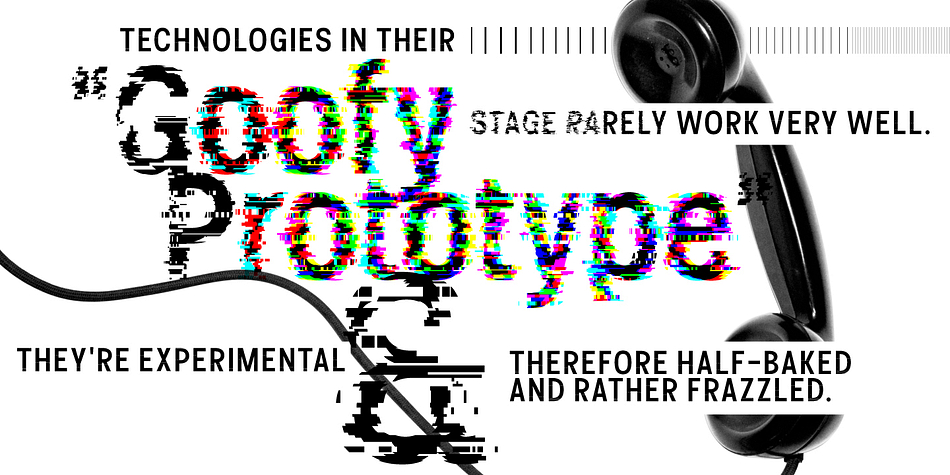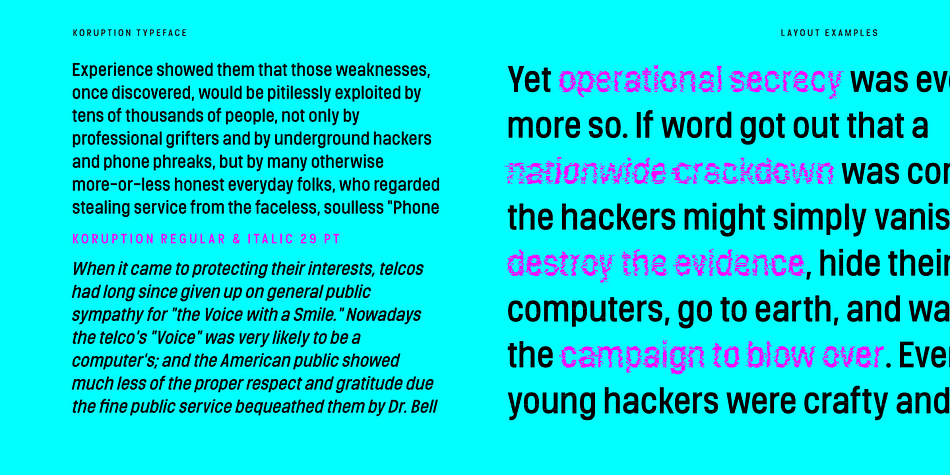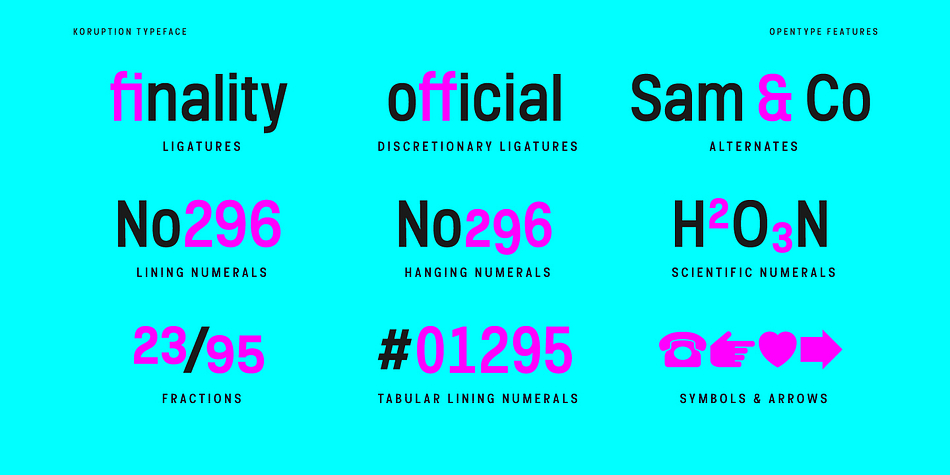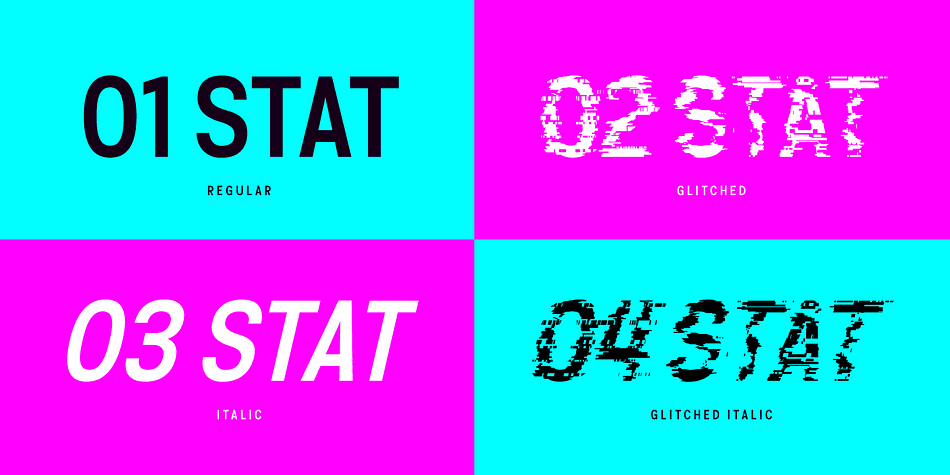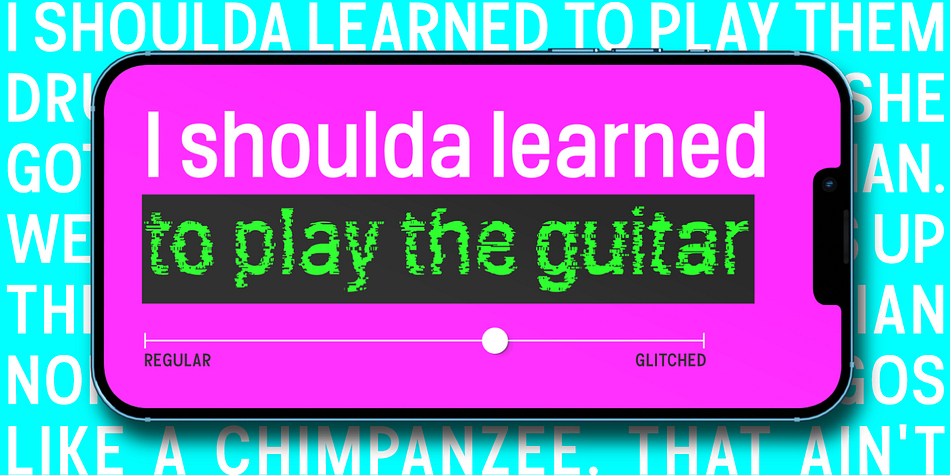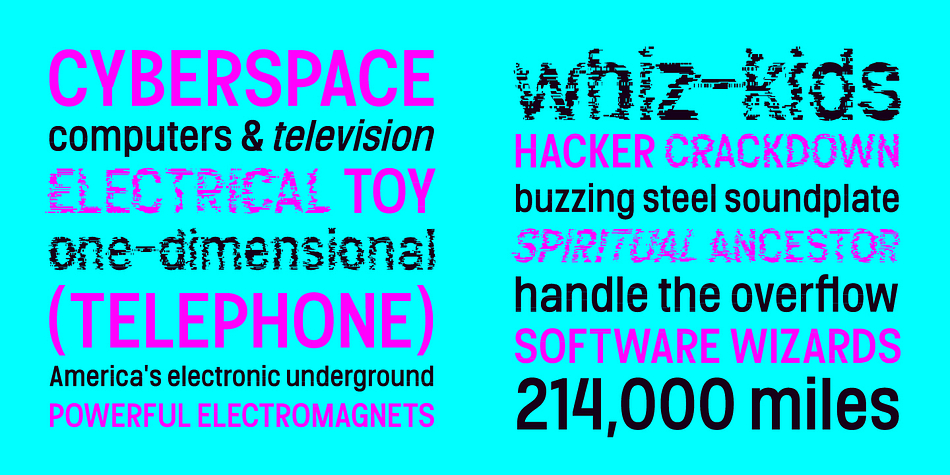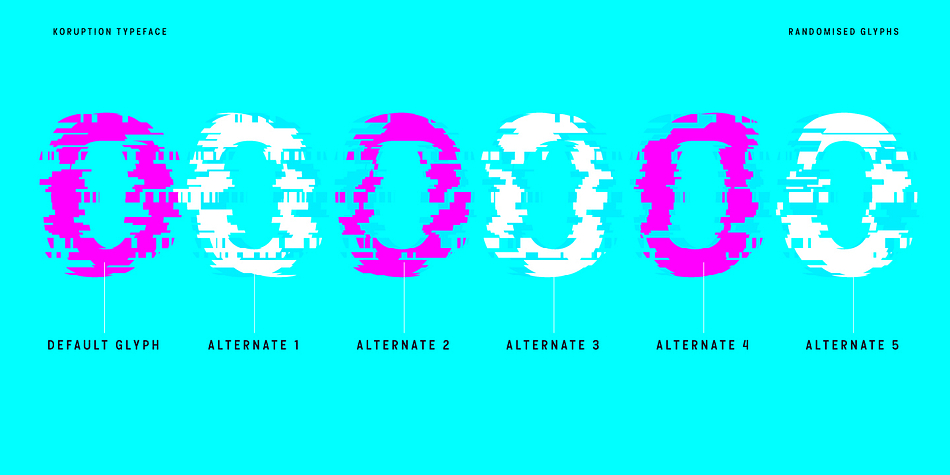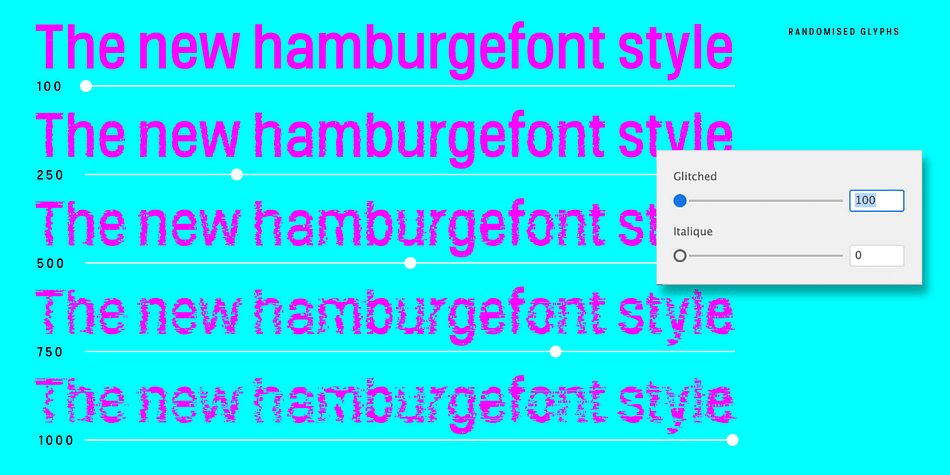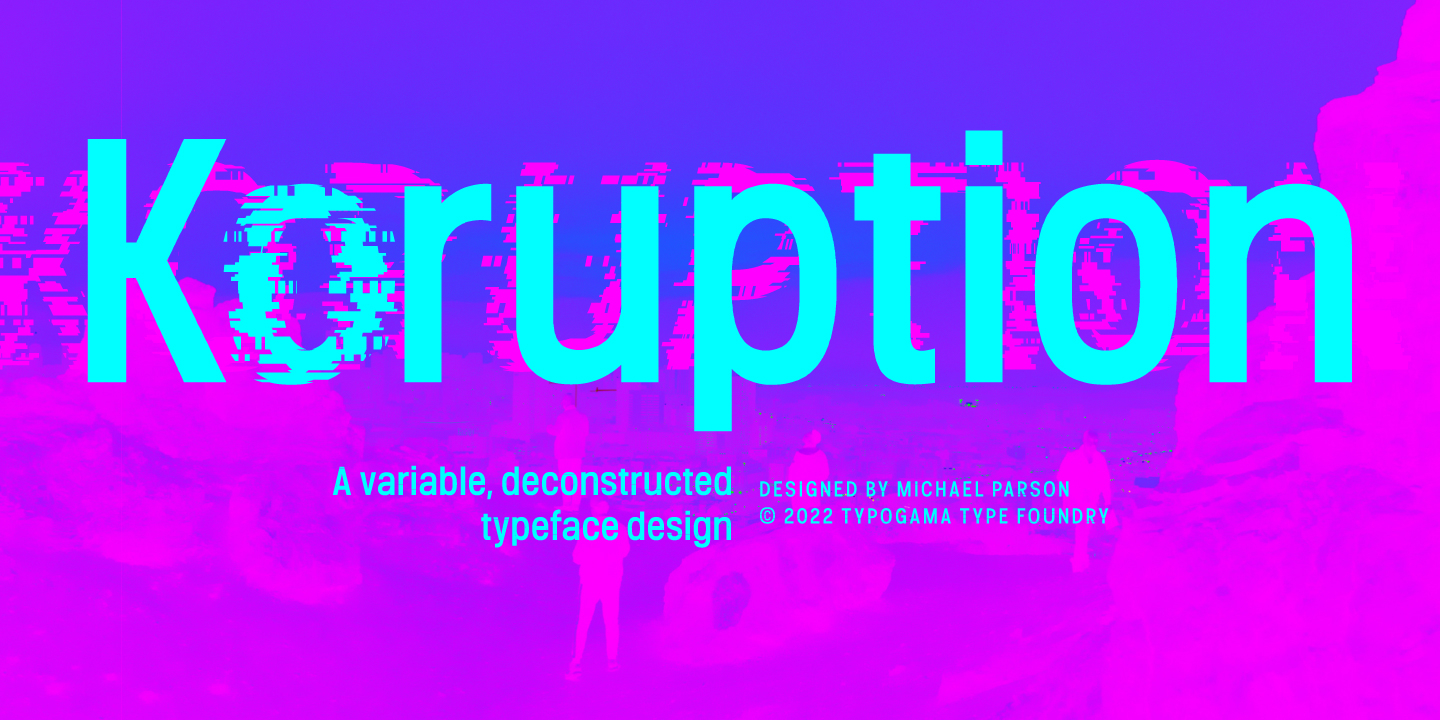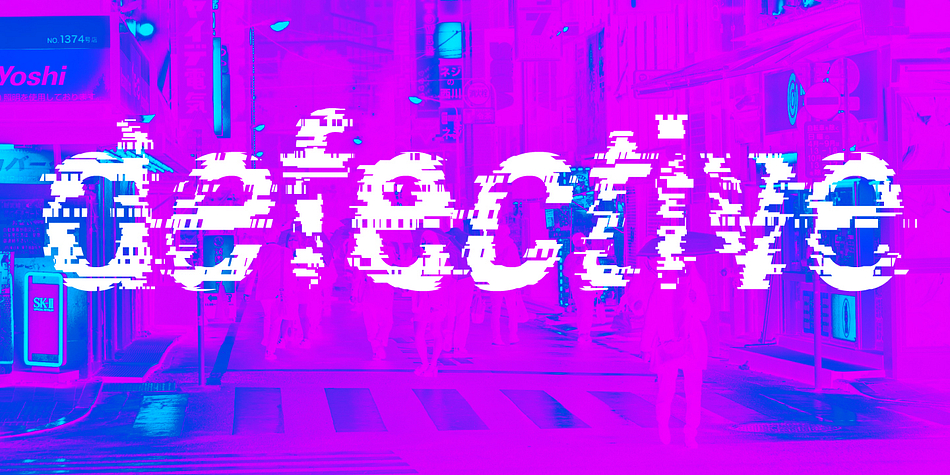
Koruption
Designed by Michael Parson, Koruption is a display sans and sans serif font family. This typeface has five styles and was published by Typogama.
Koruption is a neo-grotesque typeface family that allows the user to control the amount of distortion in the letters. Thanks to variable axises, this typeface can range from a clean form to a glitched, deformed letter style. To further the effect, these fonts employ further opentype features to alternate the letters, mimicking the real randomness that can arise from distorted letters.
With a full character set and some additional symbols and arrows, Koruption aims to be a versatile display solution, for use in headlines or logos, but it’s variable axis can also be employed as a real time animation in videos or digital applications.